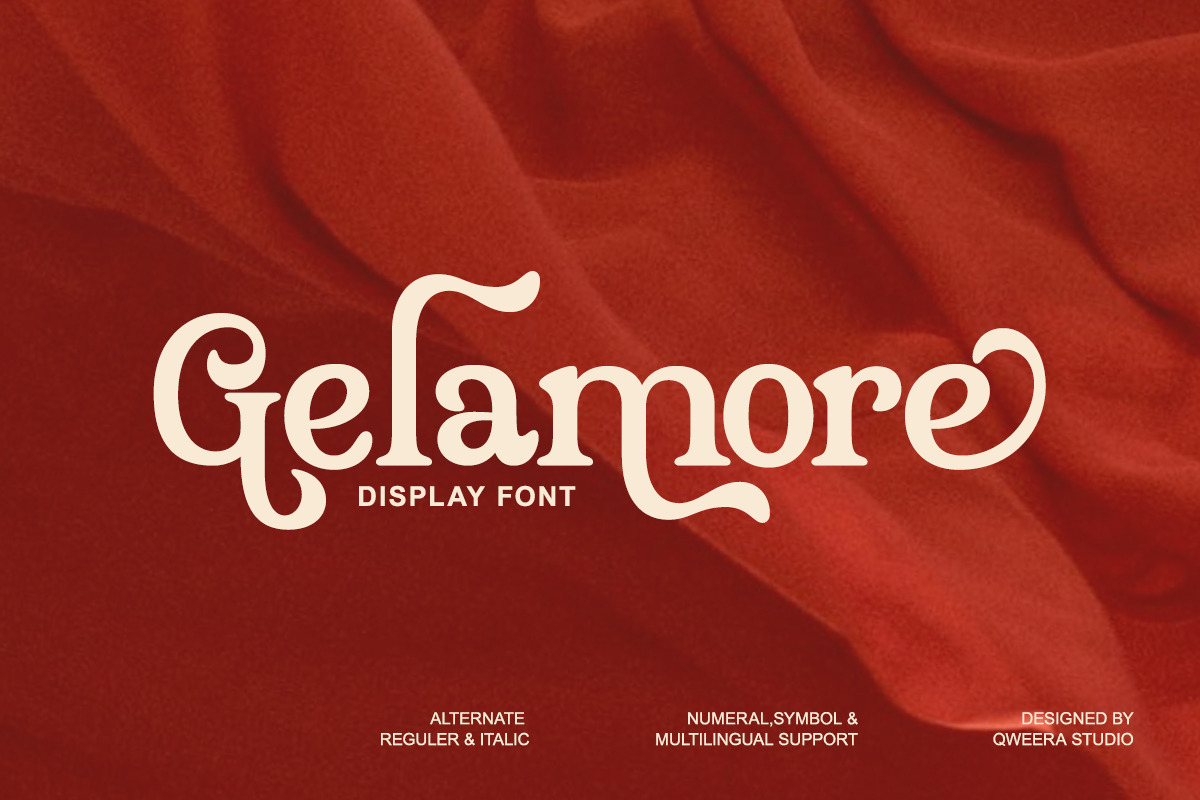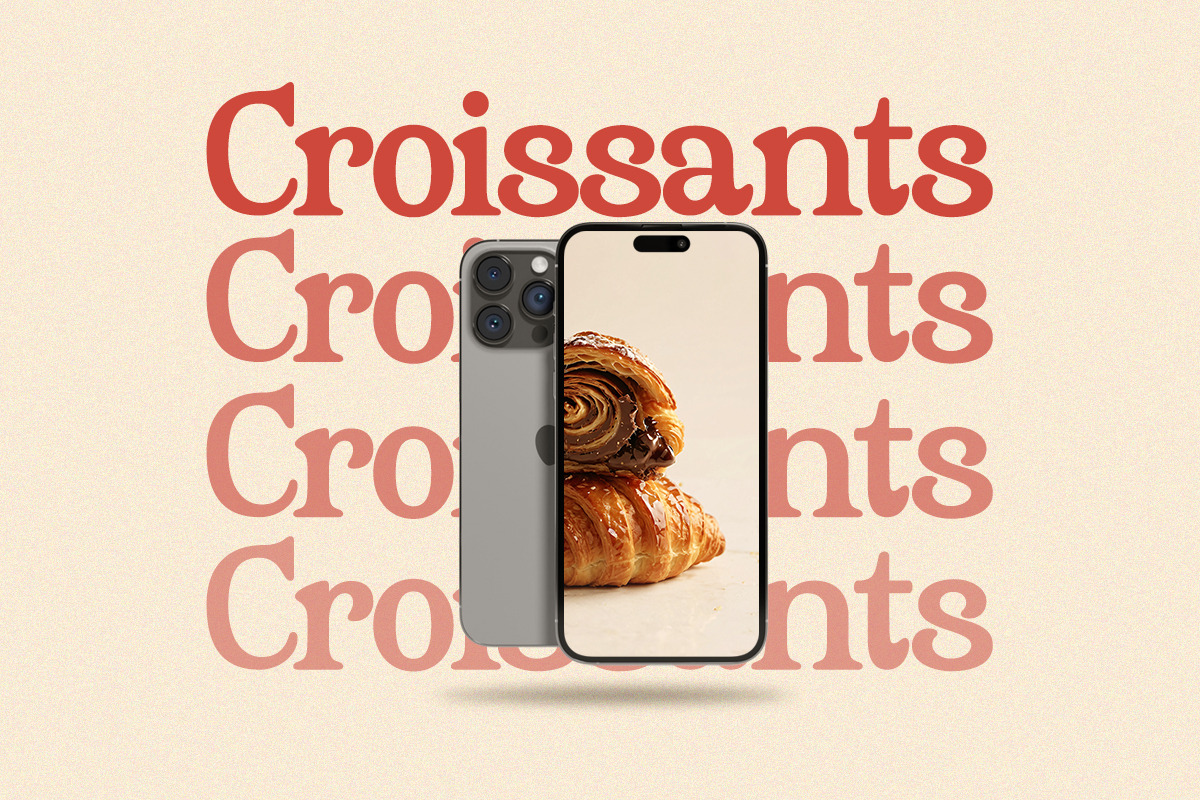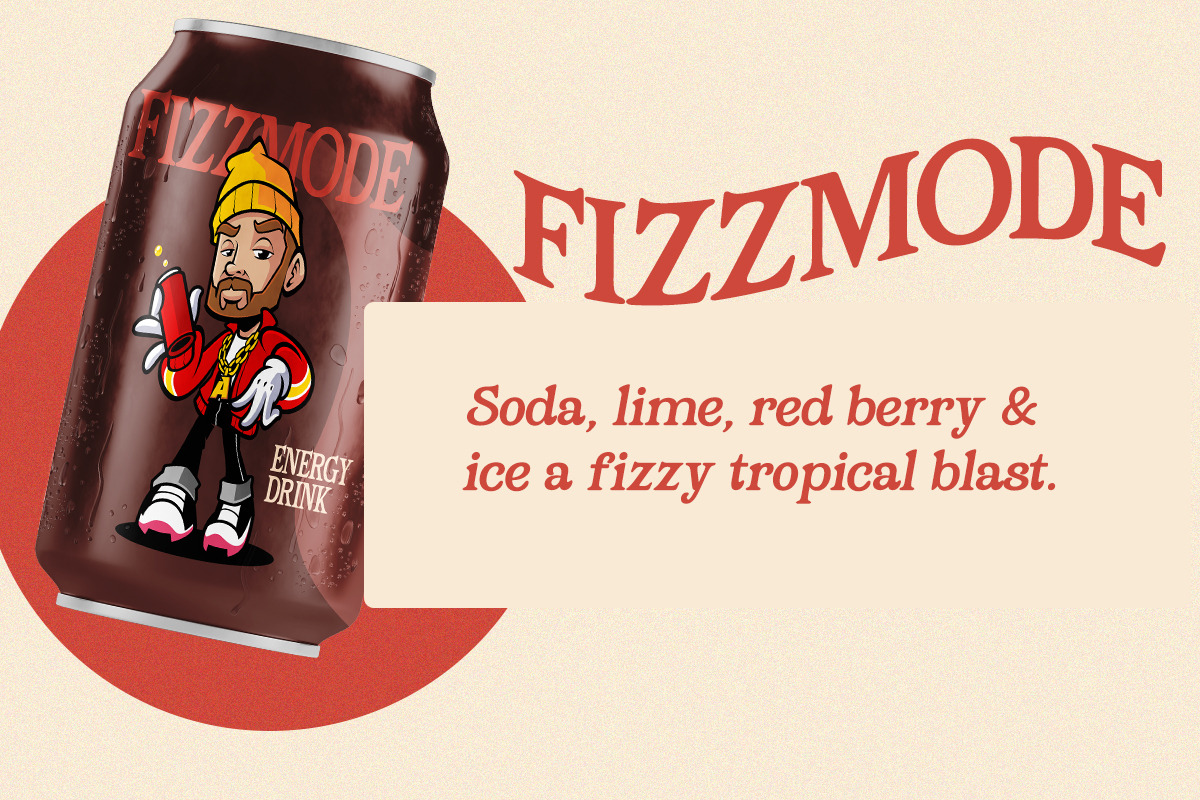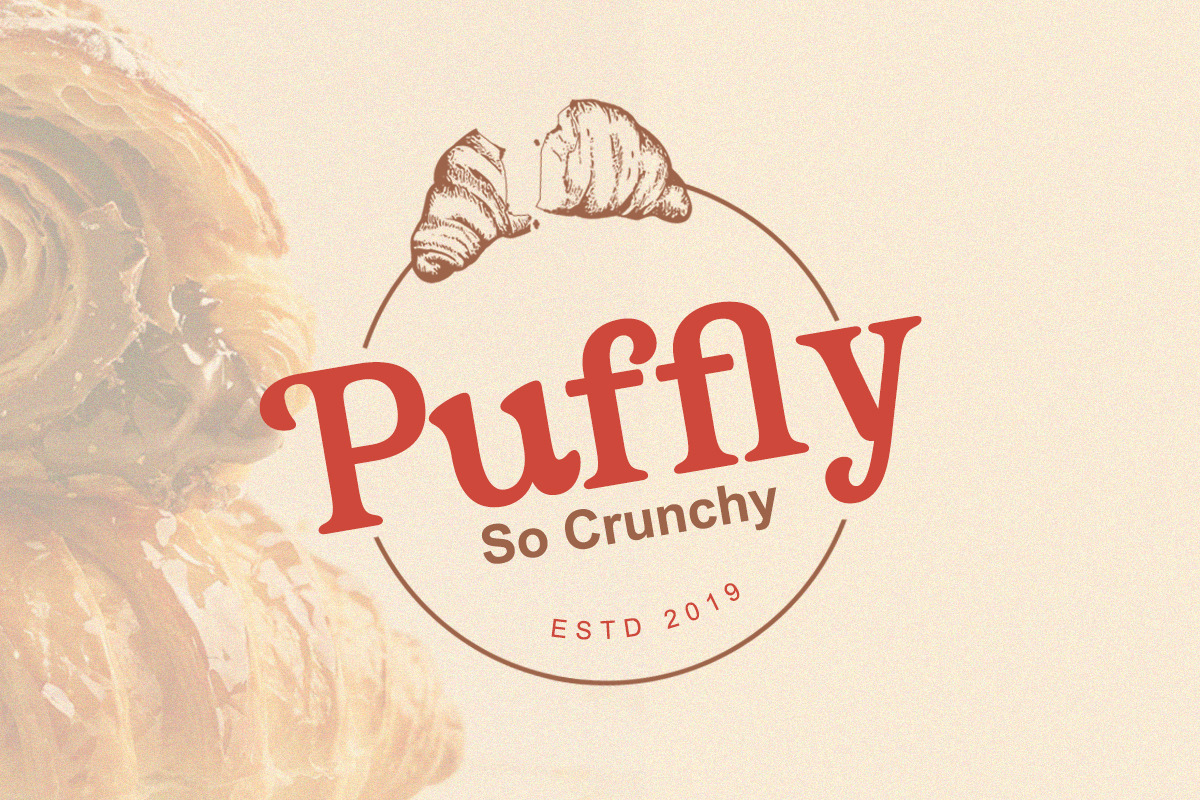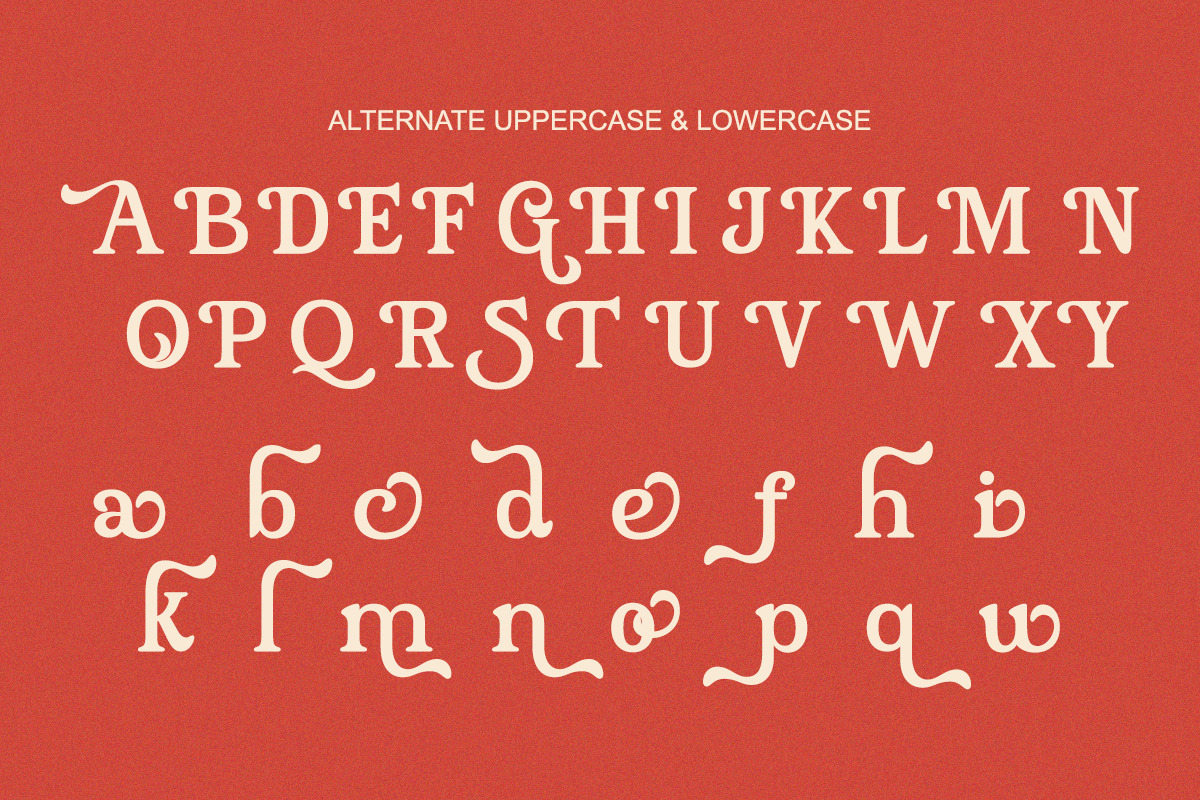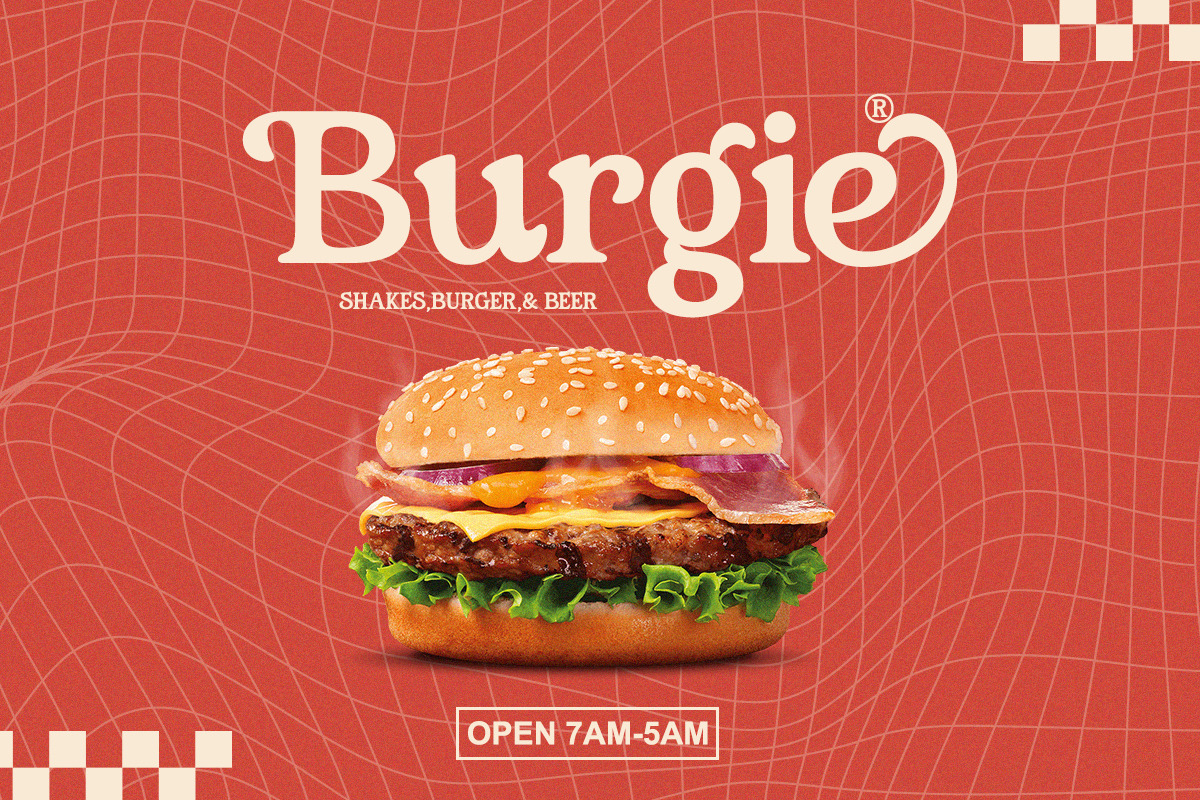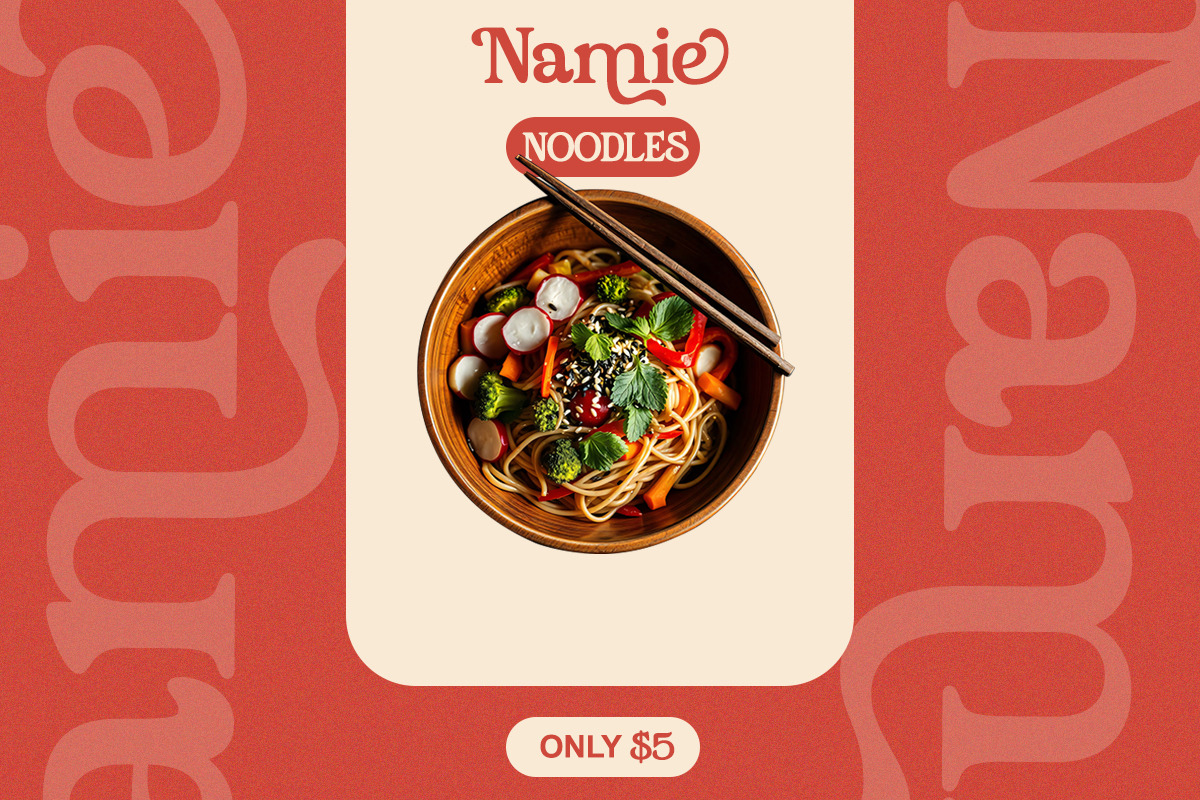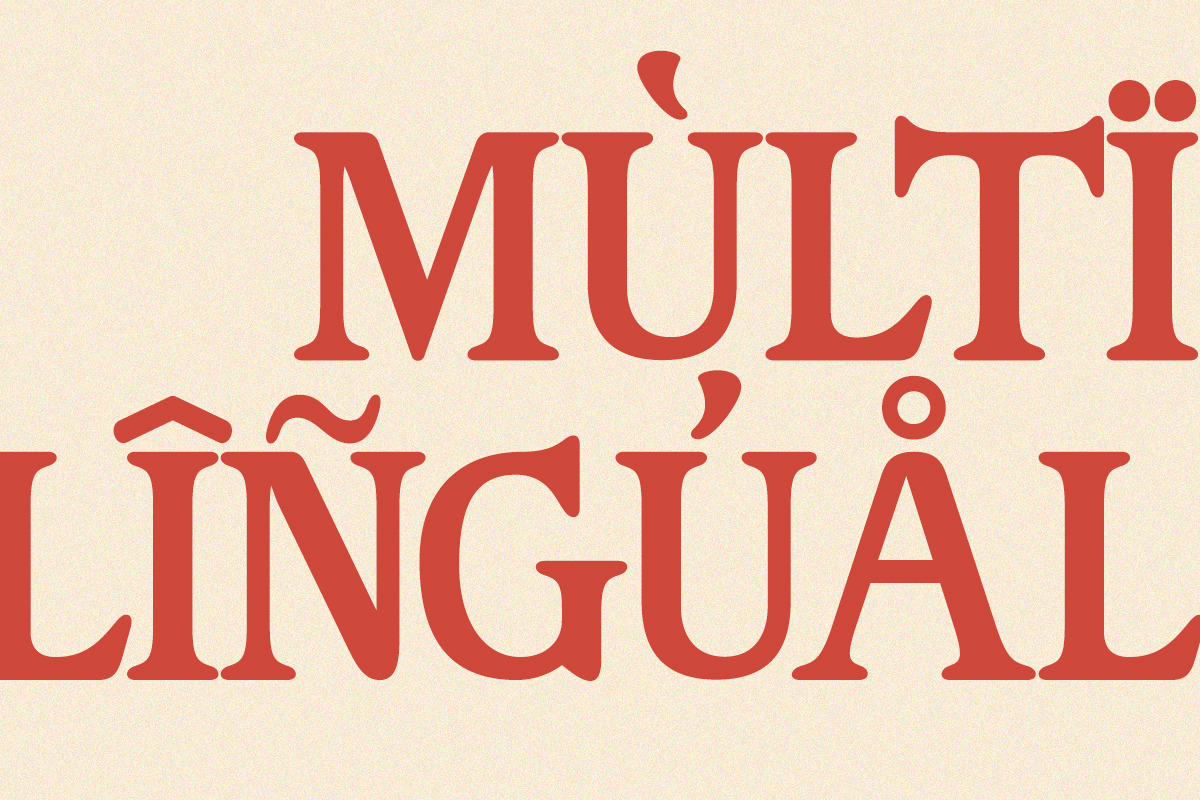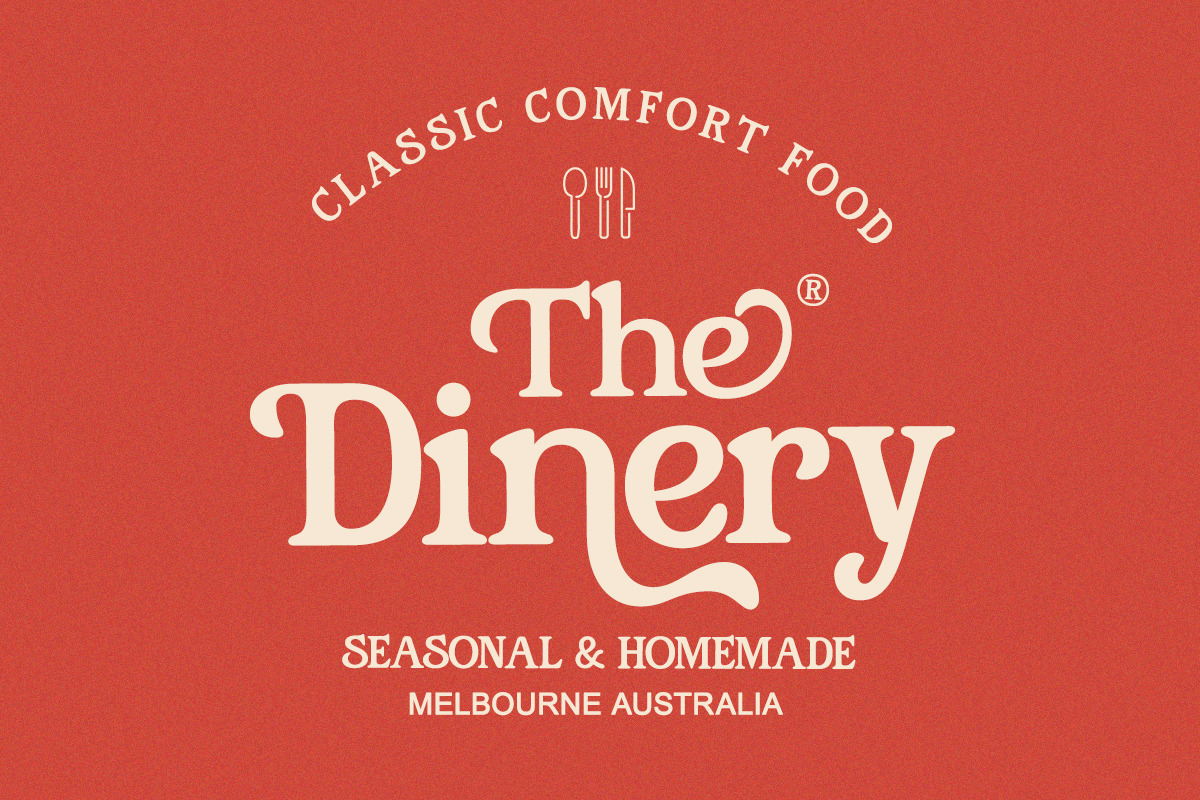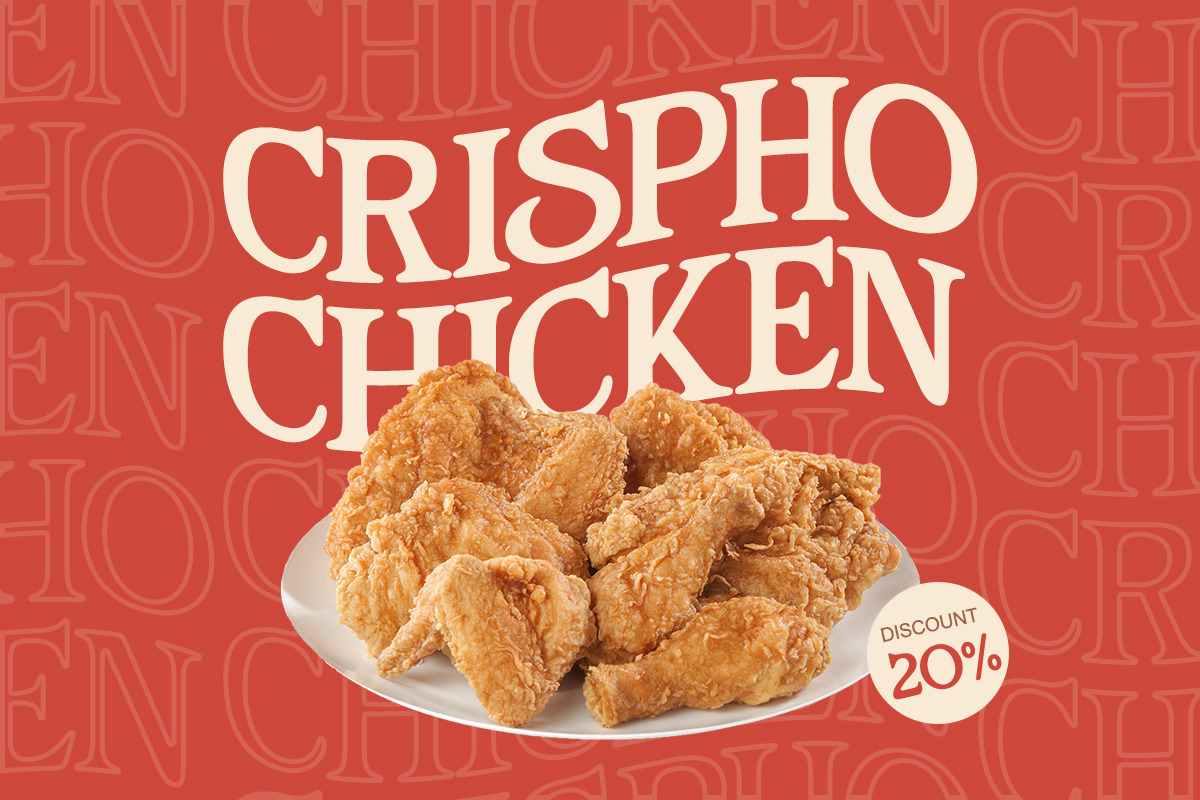
Gelamore - Retro Bold Display Font
Gelamore is a bold retro-inspired display font crafted to bring vintage flair with a modern twist.
Its playful swashes and dynamic curves make it perfect for striking logos, nostalgic posters, packaging, and branding that needs to stand out with character. Gelamore blends retro aesthetics with modern usability, delivering a versatile typeface that’s expressive and timeless.
Bring back the golden era of typography with Gelamore.
- Retro display font style
- Bold and stylish alternates
- Regular & Italic versions
- Retro & vintage branding
- Posters and advertising
- Product packaging & labels
- Music, festival & event design
- Creative logos and typography art
- Nostalgic apparel & merchandise
A display font that celebrates bold retro expression with elegance.